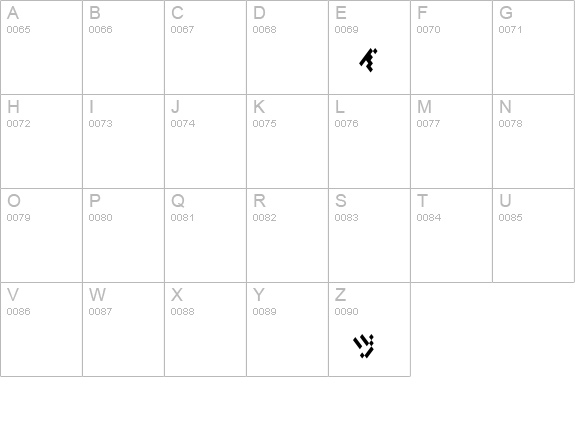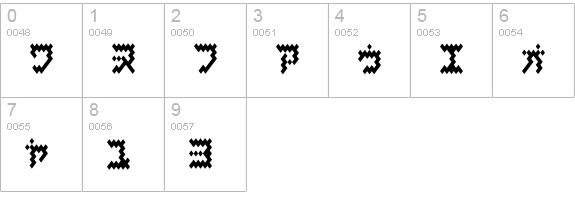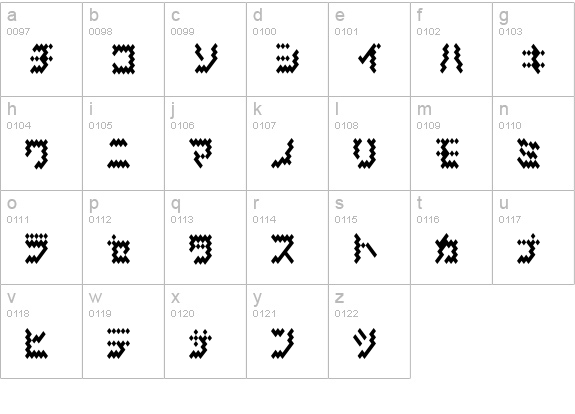
BellowsKT Font Details
BellowsKT font is a stunning display typeface that exudes elegance and sophistication. Its unique design and intricate details make it a perfect choice for any creative project that requires a touch of class. The font features beautifully crafted letterforms with a modern twist, making it stand out from the crowd. What sets BellowsKT font apart is that it is not only visually appealing but also versatile and easy to read. Whether you're designing a logo, poster, or website, this font will add a touch of sophistication to your work. Best of all, BellowsKT font is available for free download at FontsMarket.com. This means you can use it in your personal and commercial projects without any restrictions. Don't miss out on this opportunity to enhance your designs with the timeless beauty of BellowsKT font.